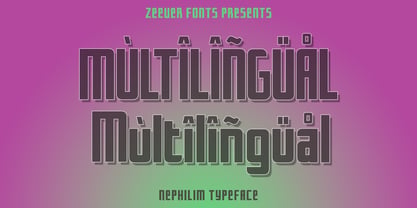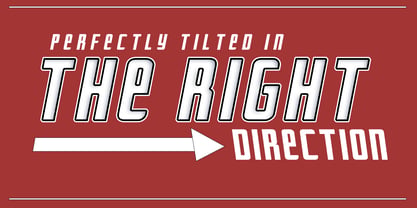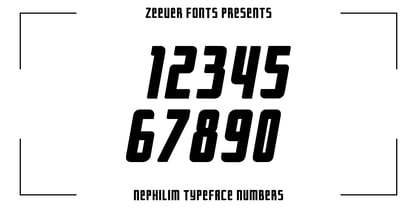
Nephilim
by Zeever Fonts
The Nephilim Font Family was designed by Ryan Dube and published by Zeever Fonts. Nephilim contains 1 styles. More about this family
This all-new typeface is crafted for creators who want their words to hit with style and clarity. Designed with comic lettering in mind, it features bold lines, clean spacing, and a full set of lowercase characters, accented glyphs, punctuation, and multilingual support. Every curve and cut was hand-built for modern digital workflows; perfect for comics, motion graphics, posters, and punchy dialogue.
Whether you’re designing for print or screen, this font delivers legibility without losing personality. Packed with alternate glyphs and OpenType features, it’s ready to flex in any creative environment.
Designers: Ryan Dube
Foundry: Zeever Fonts